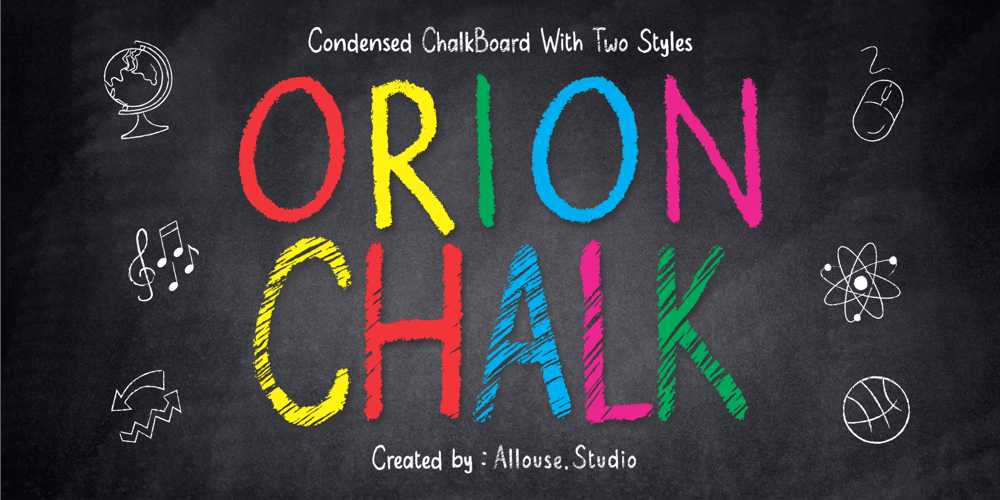
Orion Chalk Font Family was designed by Fachrizal Yusuf and published by Allouse Studio. Orion Chalk contains 2 styles and family package options. Proudly Present, Orion Chalk, with Two Styles Solid & Scratch. Orion Chalk is a Condensed Chalkboard Font.Orion Chalk is perfect for product packaging, branding project, megazine, social media, wedding, or just used to express words above the background. Orion Chalk also come with multilingual support.Enjoy the font, feel free to comment or feedback, send me PM or email.